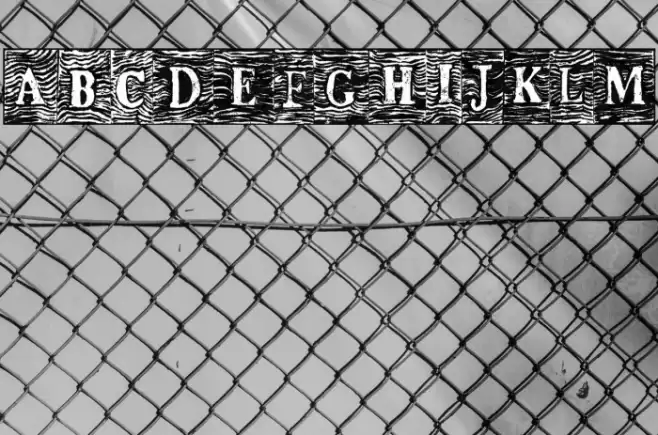
WavEd Regular Font
WavEd Regular Description
This font features a distinctive woodcut texture that gives it a rustic and handcrafted appearance. Each character is set against a background that mimics the grain and texture of wood, creating a unique visual effect. The letters are bold and slightly condensed, with a strong presence that makes them stand out. The uppercase and lowercase letters maintain a consistent style, while the numbers and special characters are designed to complement the overall aesthetic. This font's textured style is reminiscent of traditional printmaking techniques, adding a vintage and artisanal feel to any project.
A bold, woodcut-style font with a rustic, handcrafted appearance from Decorative fonts.
- Proposed Projects: Ideal for projects that require a vintage or artisanal touch, such as posters, packaging, branding for craft products, or any design that seeks to evoke a sense of tradition and craftsmanship.
- Overall Style: Vintage